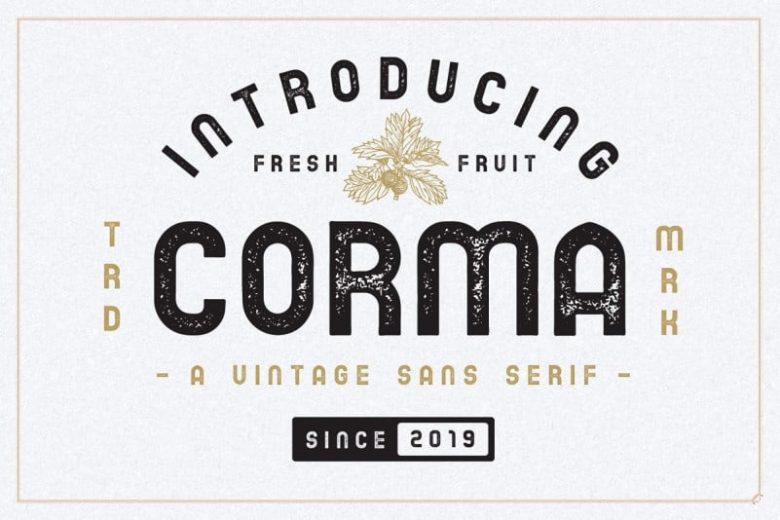
The Corma – Vintage Font
Corma is a vintage display family including Regular and Textured versions as well as Italic versions of each.
It’s perfect for logos, name card, magazine layouts, invitations, headers, or even large-scale artwork.